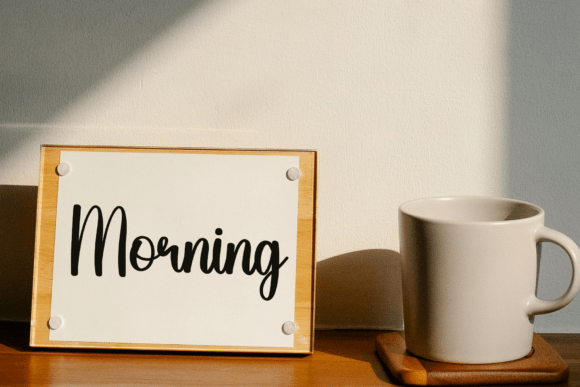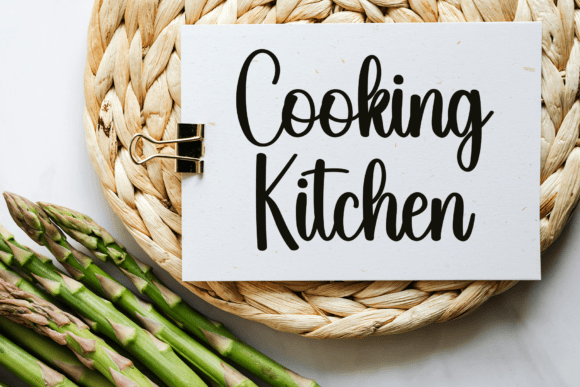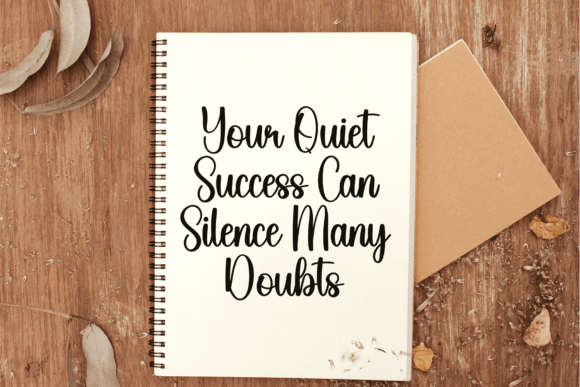
Introduction to Jugling Font
Jugling is a stylish script font that exudes artistic flair and contemporary elegance.
Featuring fluid brush strokes, dynamic curves, and expressive letterforms, it captures the essence of hand-painted calligraphy with a modern twist Ideal for logos, invitations, packaging, and social media graphics, it adds a creative and sophisticated touch to any design.